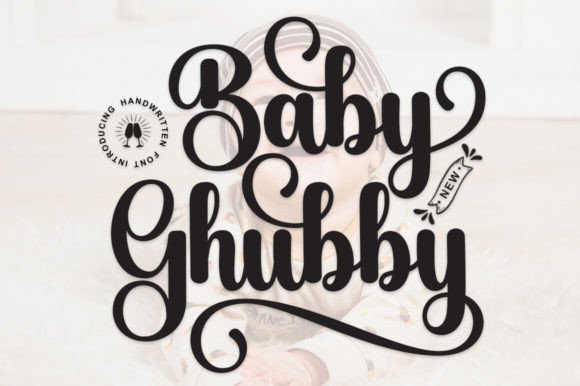
Discover the Timeless Charm of the Baby Ghubby Font
Have you ever found yourself mesmerized by the flowing lines and elegant curves of a beautiful script font? As a designer, I’m sure you have, and that’s exactly what happened to me when I stumbled upon the Baby Ghubby Font. Its classic calligraphy-inspired design instantly caught my attention, and I knew I had to dive deeper into its world.
The Baby Ghubby Font is a stunning script font that exudes charm and sophistication. Whether you’re working on a branding project, creating wedding designs, or crafting invitations, this font is sure to elevate your designs to new heights. Its versatility and timeless charm make it a valuable addition to any designer’s toolkit.
Baby Ghubby Font Key Features
- Font Family: Baby Ghubby
- Unique Characteristics: This font features a playful and cute design, perfect for children’s books, nursery decorations, and other related projects. It has a distinctive rounded shape and smooth lines, making it highly readable and visually appealing.
- Font Styles: Regular, Bold, Italic, Bold Italic
Review of Baby Ghubby Font
Overall, I think Baby Ghubby Font is a cute and quirky addition to any design project. ✨ It’s perfect for creating a playful and whimsical atmosphere, making it ideal for children’s books, nursery decor, or even advertising for family-friendly brands.
Here are some of the things I love about Baby Ghubby Font:
- Its unique letterforms and flourishes add a touch of personality to any text.
- The font is highly legible, even at smaller font sizes, making it suitable for body text.
- The wide range of weights and styles available allows for a lot of creative flexibility.
- ⚠️ The font may be too playful or childish for more formal or professional projects.
- ⚠️ Some characters may not be perfectly optimized for screen use, leading to pixelation or distortion.
- ⚠️ The font’s irregularities may make it difficult to use in situations where precision and consistency are crucial.
Overall, I think Baby Ghubby Font is a great choice for designers looking to add a touch of whimsy to their projects. While it may not be suitable for every project, it’s a great option for those who want to create a fun and playful atmosphere.
The Baby Ghubby Font is ideal for creating playful and whimsical designs, such as:
- Baby shower invitations and decorations
- Food labels and packaging for baked goods and candies
Remember to use the font in moderation, as it can be quite bold and eye-catching.
Alternatives to Baby Ghubby Font for Designers
Great Vibes Font is a modern, elegant script font that works well for invitations, wedding designs, and other creative projects. It’s ideal for designers who want a sophisticated and stylish font without the quirky feel of Baby Ghubby. Great Vibes Font is more refined and polished, making it suitable for high-end designs.
Pacifico Font is a beautiful, cursive script font that’s perfect for creating a relaxed and casual atmosphere. It’s great for designers who want to add a touch of warmth and personality to their designs. While Baby Ghubby Font is more playful and quirky, Pacifico Font is more laid-back and effortless, making it suitable for designs that require a beachy or bohemian vibe.
Alex Brush Font is a elegant, handwritten font that’s perfect for designers who want to add a touch of sophistication and elegance to their designs. It’s ideal for creating high-end designs, such as luxury branding, fashion designs, and fine art projects. While Baby Ghubby Font is more playful and whimsical, Alex Brush Font is more refined and polished, making it suitable for designs that require a high level of sophistication.
Carolyna Pro Font is a modern, elegant script font that’s perfect for designers who want to create a sophisticated and stylish design. It’s ideal for creating high-end designs, such as luxury branding, fashion designs, and fine art projects. While Baby Ghubby Font is more playful and quirky, Carolyna Pro Font is more refined and polished, making it suitable for designs that require a high level of sophistication and elegance.